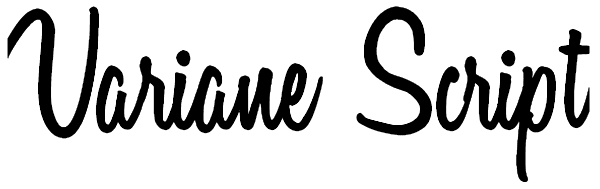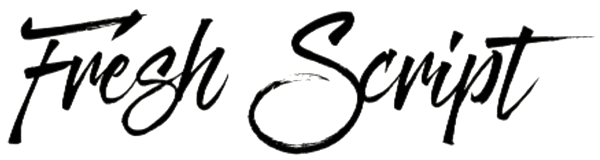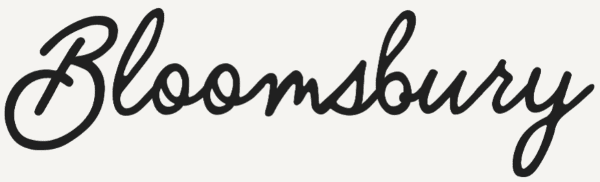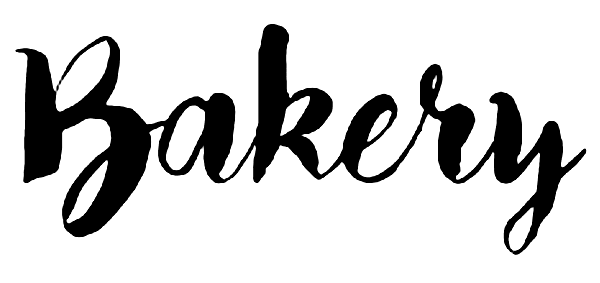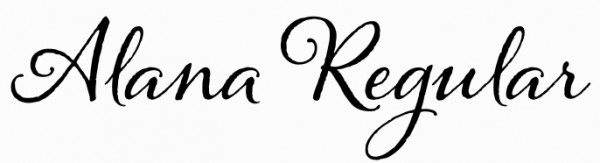
Script fonts are fonts with handwritten or calligraphic styles. They’re meant to mimic handwritten text in historic and modern styles so the user can use elegant handwritten styles in digital works. They’re a popular choice among designers, especially for logos and title images. In fact, many script fonts are hand-drawn by designers using anything from classic calligraphy pens to something as modern and simple as ballpoint pens.
There are two main types of script fonts: formal and informal. Formal styles tend to be more elegant and carefully produced. The letters often flow well together in sub-styles known as “connected script fonts.” Informal styles use a mixture of cursive and print letters, and only certain letters may connect with one another in sub-styles known as “semi-connected script fonts.”
Whether formal or informal, connected or semi-connected, these beautifully designed fonts are available in the thousands around the web. We’re going to list 18 of our favorite free and premium script fonts here to give you a leg up on your next web design project.
Free Script Fonts
Let’s take a look at our list of free script fonts:
Jenna Sue by Jenna Sue Design
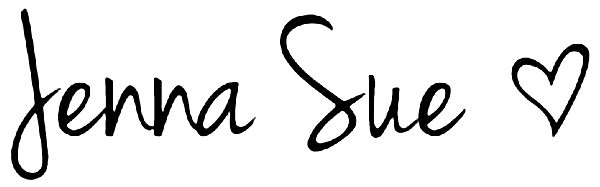
Jenna Sue is a popular script font by Jenna Sue Design that can be found on font websites all across the web. It was “handmade with care” by Jenna Sue herself. The font was first seen on DaFont.com on July 03, 2011, and it has over 3.3 million downloads on the site. The font is available for free for commercial use, and your download comes with the desktop version, which includes numbers and punctuation. A webfont version can be purchased for $10 as a personal or commercial license.
Lobster by Impallari Type
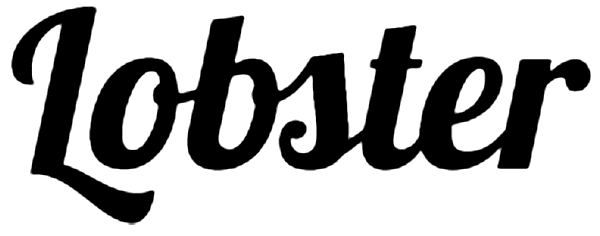
Lobster is another popular script font, but this one was made by Pablo Impallari of Impallari Type. It was first seen on DaFont.com on November 24, 2010 and has over 2.6 million downloads on the site. The font has a Public Domain / GPL / OFL license on DaFont.com. The font includes glyphs and punctuation, and a webfont version can be found on the Google Web Fonts Directory. Details on how to format this version can be found on the font’s page on the Impallari website.
Pacifico by Vernon Adams
Pacifico is a handwritten, calligraphic font by Vernon Adams. It was uploaded to Font Squirrel on March 25, 2011 and has over 1.7 million downloads on the site. It comes with the typical set of glyphs, but a webfont version is not available for direct download. You’ll need to use Font Squirrel’s Webfont Generator instead. The font is licensed under Version 1.1 of the SIL Open Font License, which allows “licensed fonts to be used, studied, modified and redistributed freely as long as they are not sold by themselves.”
Allura by TypeSETit
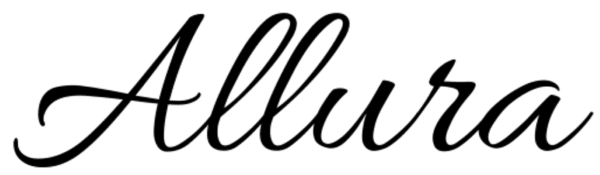
Allura is a calligraphic script font by TypeSETit. The font was uploaded to Font Squirrel on March 30, 2012 and has over 1 million downloads. It’s licensed under SIL Open Font License Version 1.1. It comes with a large set of glyphs, but a webfont version is unavailable unless you use Font Squirrel’s Webfont Generator.
Grand Hotel by Astigmatic
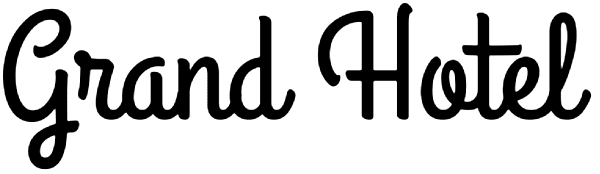
Grand Hotel is a casual script font designed by Brian J. Bonislawsky and Jim Lyles of Astigmatic. The font was uploaded to Font Squirrel on December 07, 2012 and has over 834,000 downloads. Its design was inspired by the title screen of “Cafe Metropole,” a film released in 1937. The font comes with glyphs and is licensed under the SIL Open Font License Version 1.1. A webfont version must be created with the Webfont Generator.
Dancing Script OT by Impallari Type
This is another script font designed by Pablo Impallari of Impallari Type, but this one features a cursive design. It was uploaded to Font Squirrel on February 07, 2011 and has over 694,000 downloads. It comes with a small set of glyphs and is licensed under the SIL Open Font License Version 1.1. A webfont version can be generated with the Webfont Generator from Font Squirrel.
Playball by TypeSETit
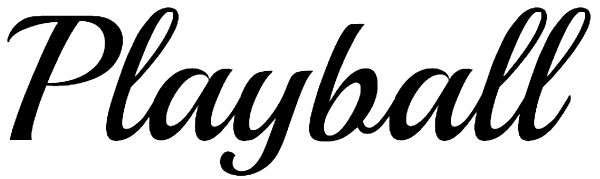
Playball is a connected script by TypeSETit designed with sporting and festive events in mind. The font was created in 2011 and has over 319,000 downloads on FontSpace.com. It’s licensed under the SIL Open Font License, and the designer claims it’s a “unicode font that uses the Latin script and its variants,” making it capable of expanding to “support other scripts.” This font comes with basic letters, numbers, punctuation and glyphs.
So glad to see you featuring Ian Barnard’s fonts! That man is a legend! Absolute superb work.
Very nice list. I like that you didn’t include some of these new brush scripts with the horribly uneven baselines that seem to be so popular now. I saw one the other day that I couldn’t even read!
My favorite script, that is free and not on your list, is Honey Script. It even comes in 2 weights!